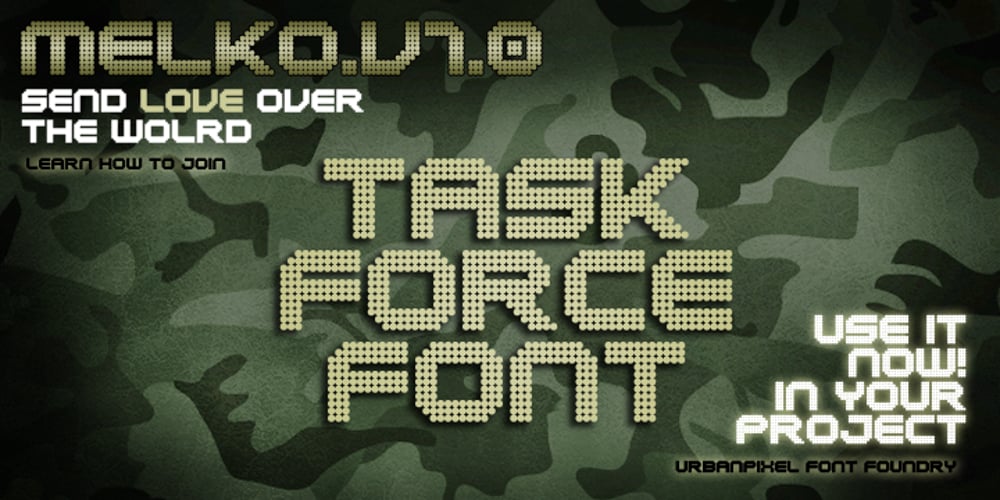
Melko
Melko font
Melko Font Family was designed by Michel Troy and published by UrbanPixel. Melko contains 6 styles and family package options. The best of both worlds: crisp and sharp for screen resolutions and nice output at larger sizes.